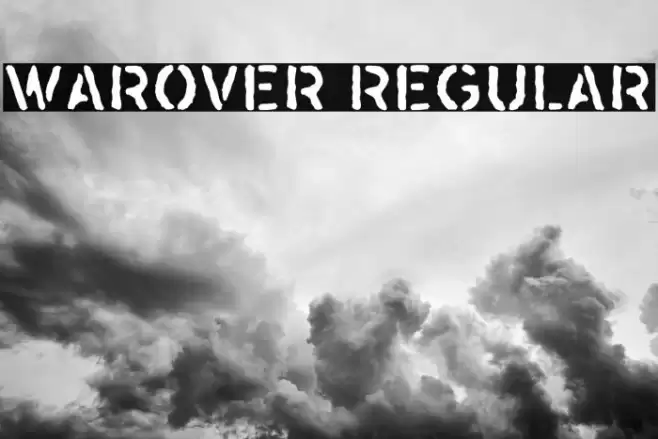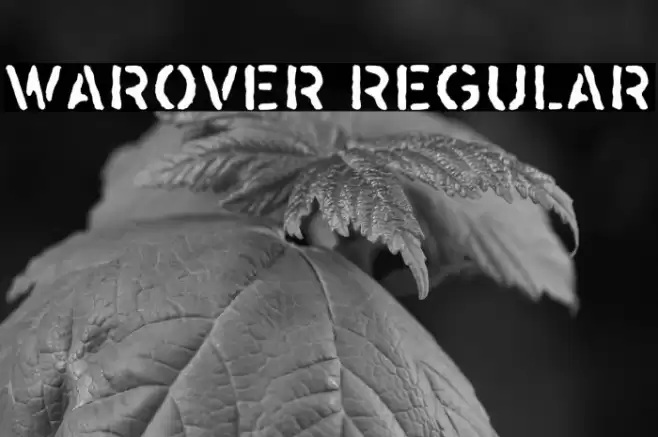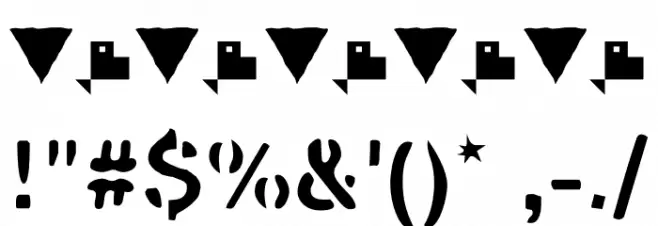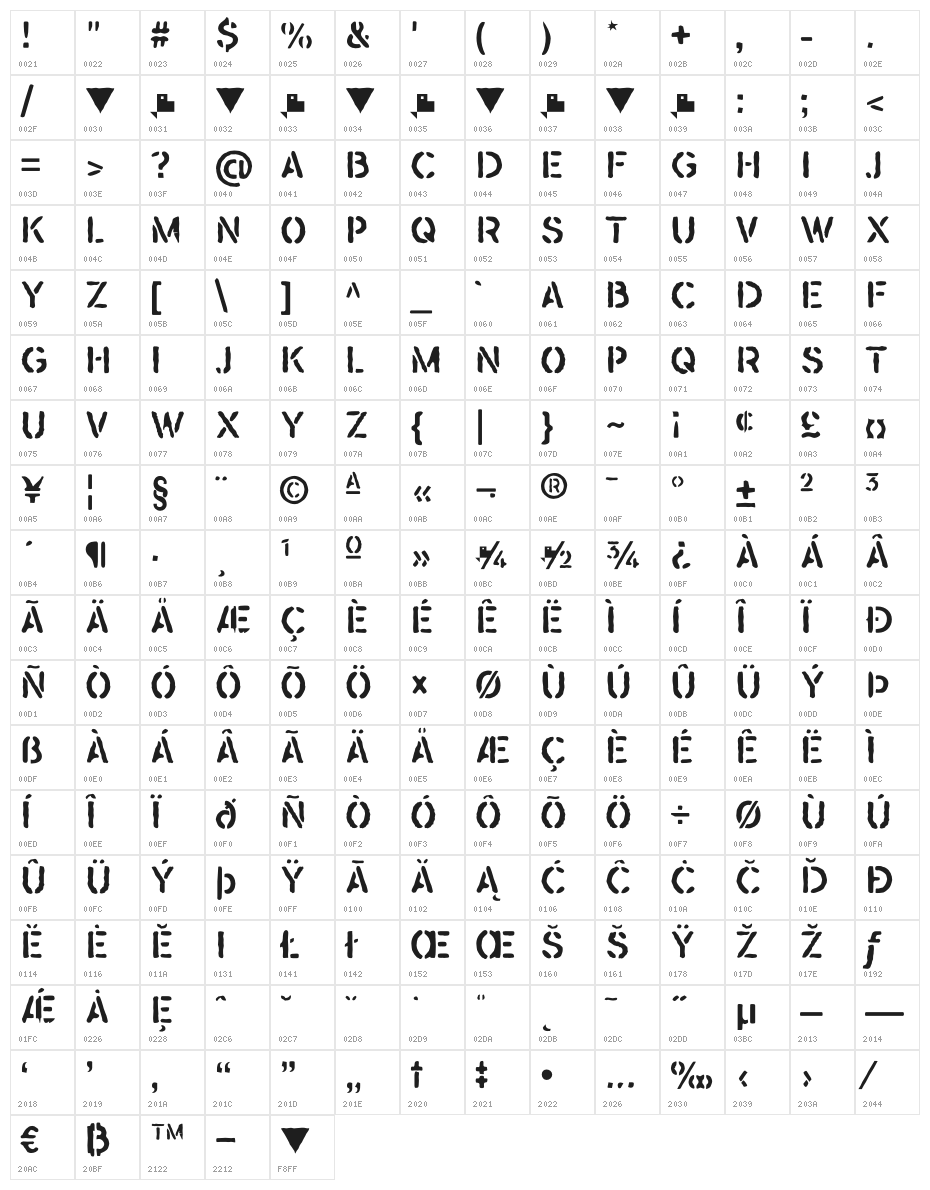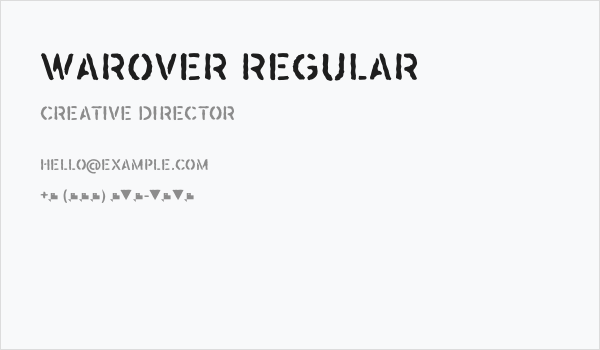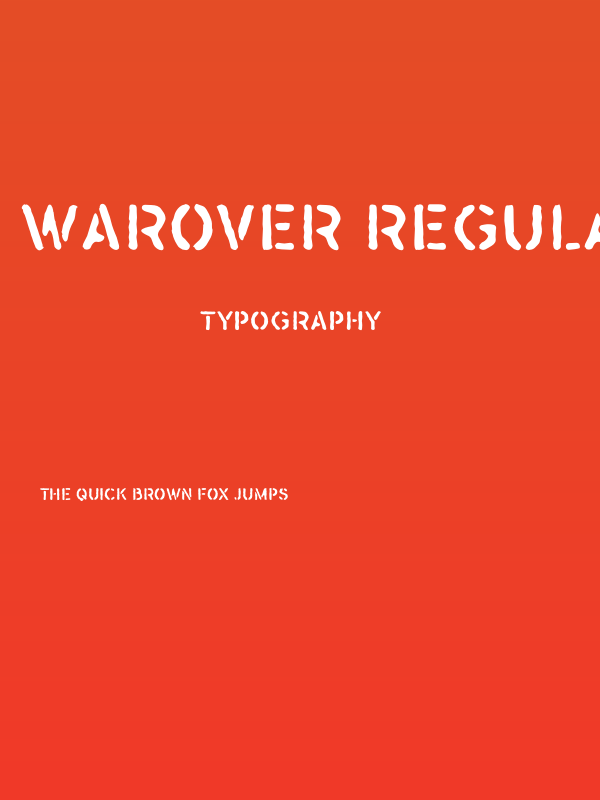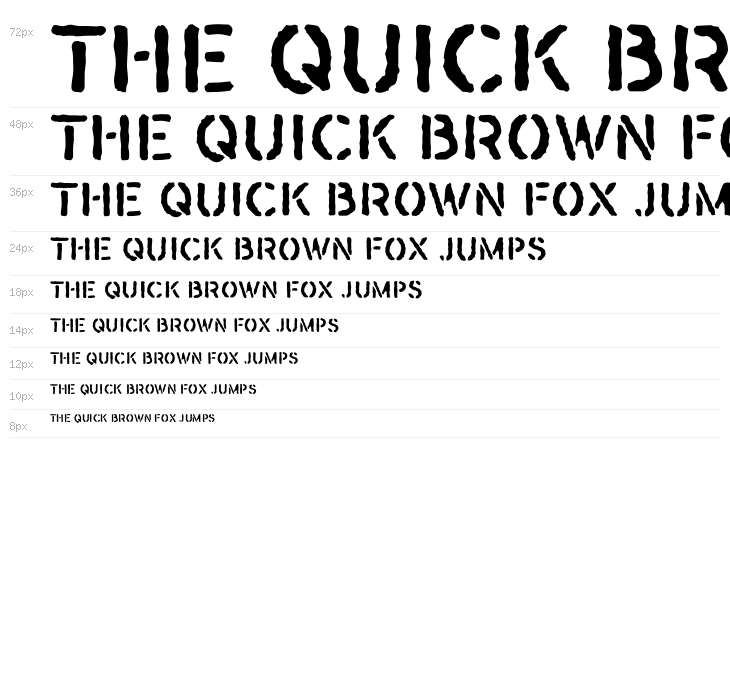
Warover Regular फ़ॉन्ट
- ( Warover is a stencil typeface worn by time, use and war. Warover is based on my previous Flamante Stencil typeface, it includes various sets of numbers, the symbol for bitcoin and other cryptocurrencies. An all-caps font for headlines and branding that de FREE )